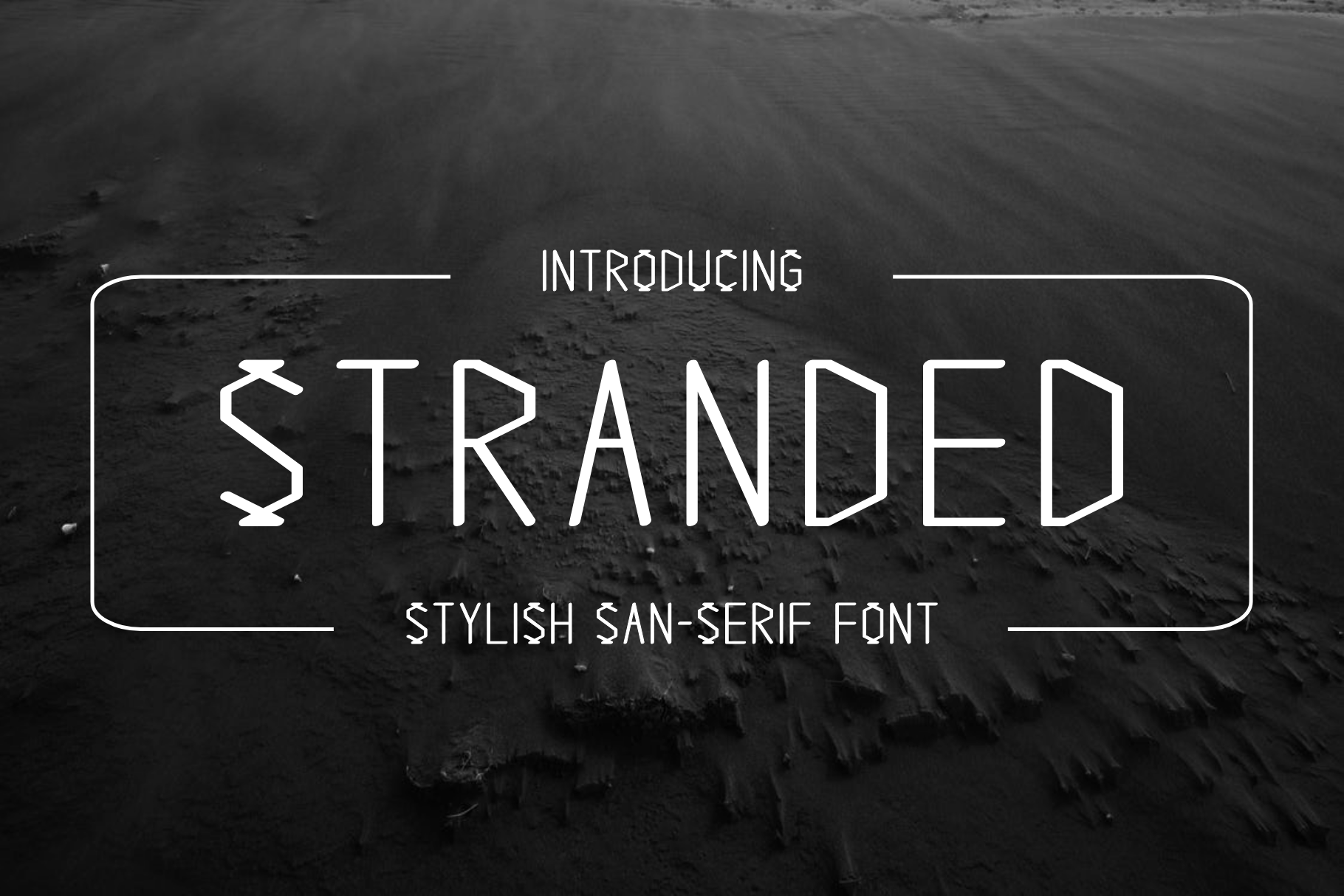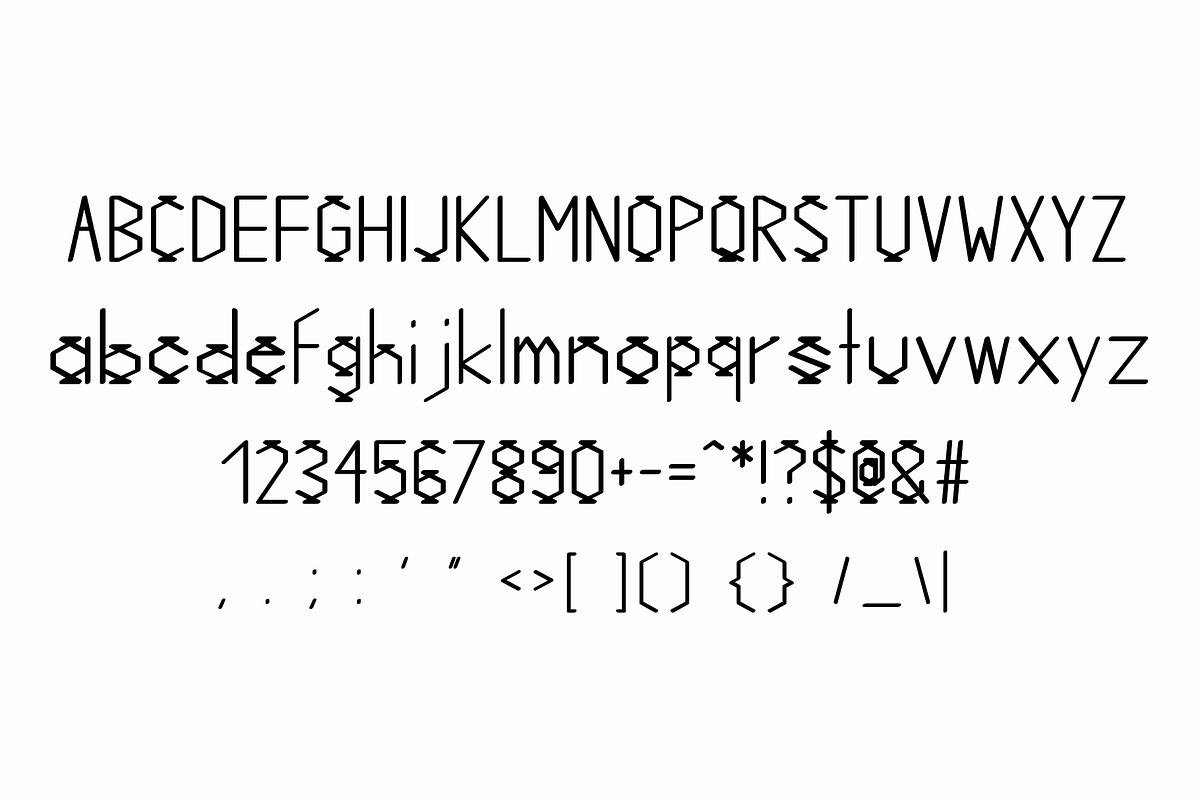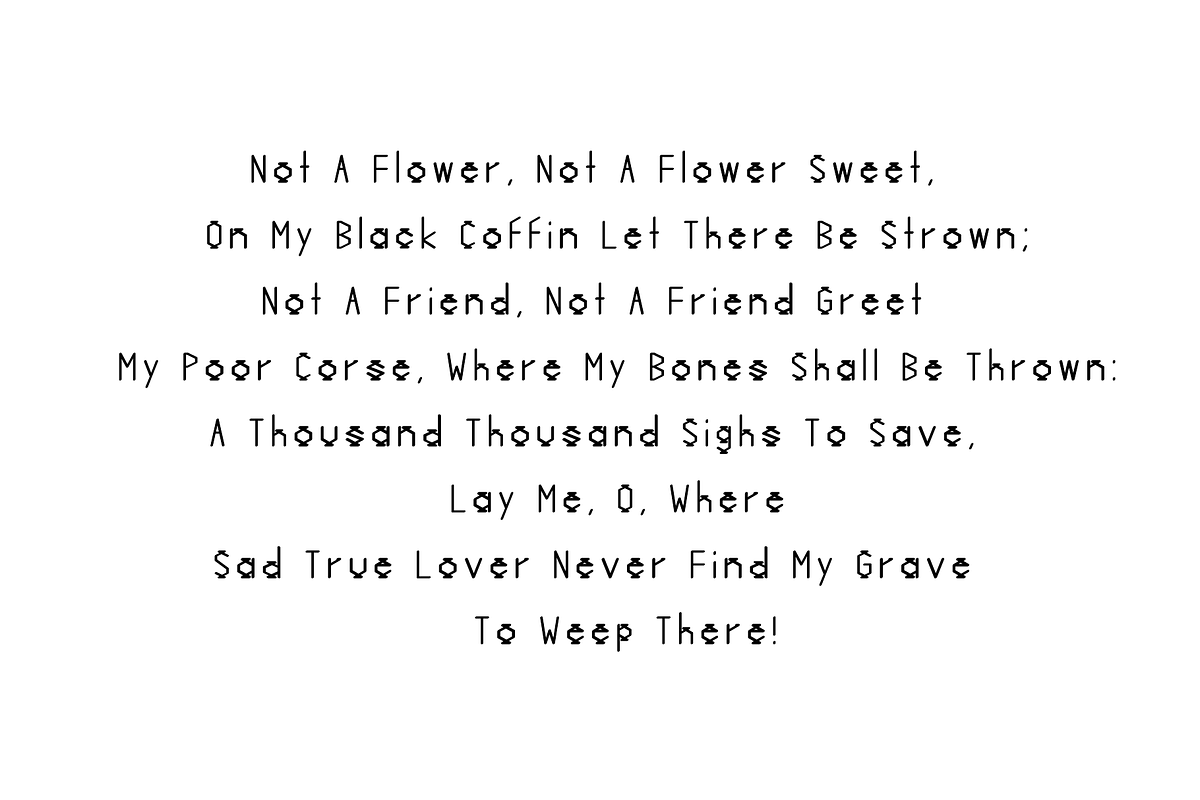
Stranded - Modern Typeface
Stranded - beautifully crafted modern typeface ready for your awesome projects.
- Consistency
- Well organized
- Easy to use